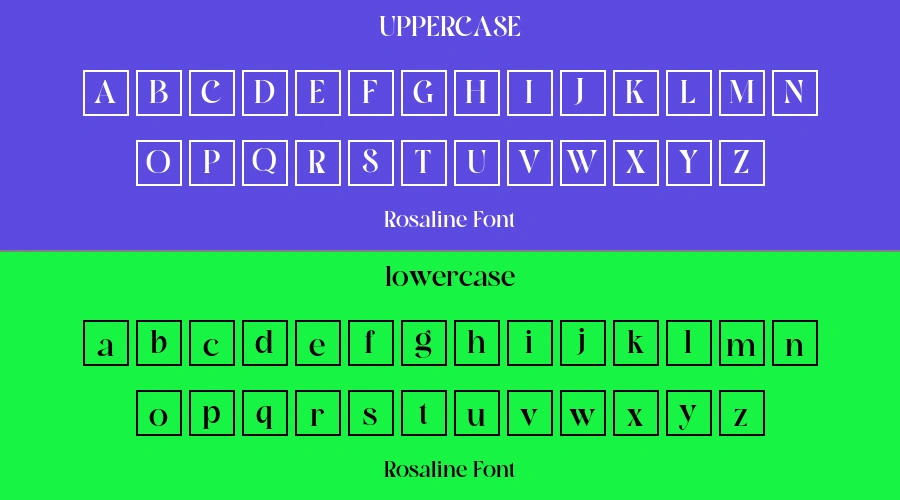
About Rosaline Font
When typographic excellence matters most, Rosaline Font delivers through its thoughtful blend of dramatic weight and artistic impact. Specially crafted for wayfinding systems, it offers the distinctiveness and functional utility required for sophisticated design work. Every detail serves a purpose.
The character set showcases thoughtful details like consistent strokes alongside functional historical accuracy. This proves especially valuable in retail environments, where small text clarity directly influences results. Particular attention was paid to x-height and cultural relevance during development.